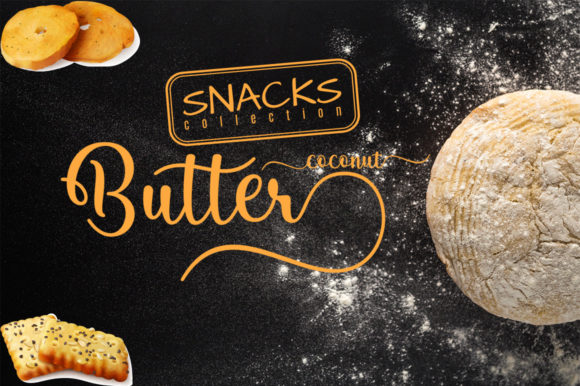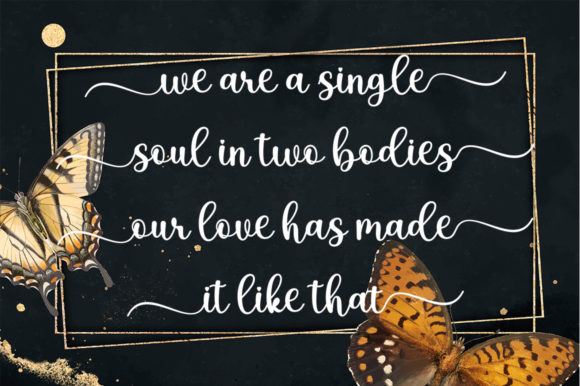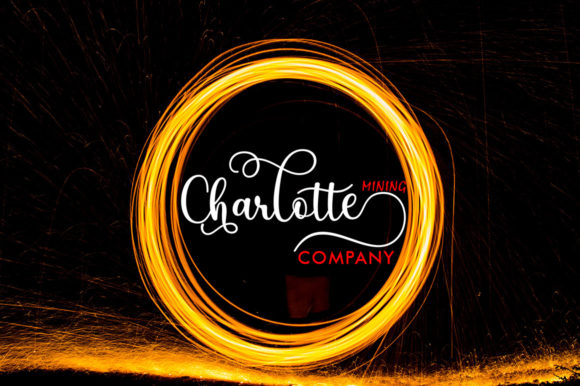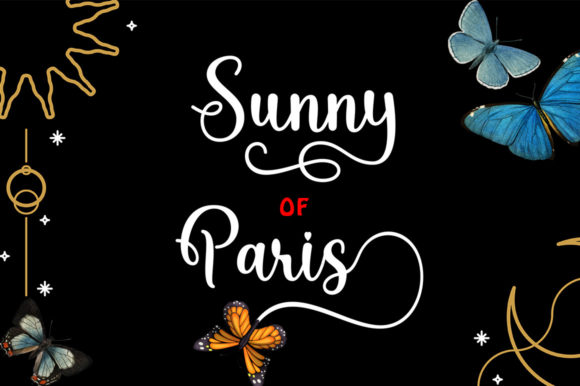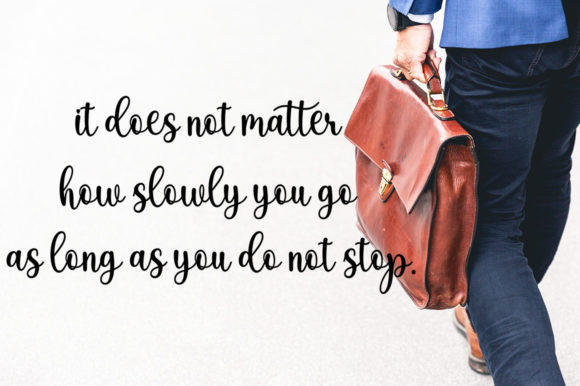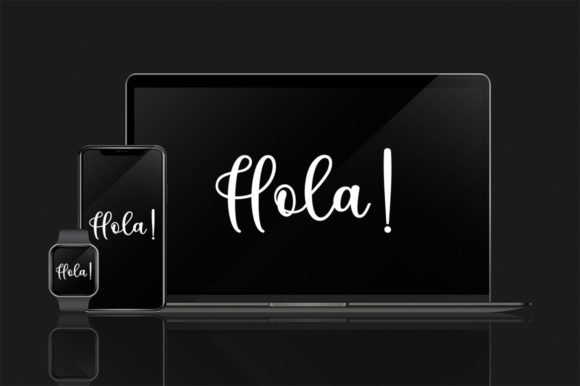
Berdinga Script Font: Elevate Your Designs with Elegance and Style
In the world of typography, a font can make or break a design. For designers and crafters seeking to add a touch of sophistication and elegance to their projects, the Berdinga Script Font is an exceptional choice. This beautifully crafted handwritten font is designed to become a true favorite among creative professionals, offering a wide range of applications and a user-friendly encoding system.
What is Berdinga Script Font?
Berdinga Script is an elegant and stylish handwritten font, carefully handcrafted to bring a touch of refinement to various design projects. Its flowing lines, beautiful swashes, and classic feel make it perfect for a multitude of purposes, including logos, wedding invitations, headings, t-shirts, letterhead, signage, labels, news, posters, badges, and more.
Key Features of Berdinga Script Font
- Elegant and Stylish Design: Berdinga Script boasts a sophisticated and stylish design, making it ideal for projects that require a touch of elegance.
- Handcrafted with Care: The font has been carefully handcrafted to ensure a high level of quality and attention to detail.
- PUA Encoded: Berdinga Script is PUA (Private Use Area) encoded, allowing easy access to all glyphs and swashes. This feature makes it simple to use and customize the font to suit your design needs.
- Versatile Applications: The font’s versatility makes it suitable for a wide range of projects, from logos and wedding invitations to signage and digital media.
Applications of Berdinga Script Font
The Berdinga Script Font is perfect for various design projects, including:
- Logos: Create a lasting impression with a custom logo designed using Berdinga Script.
- Wedding Invitations: Add a touch of romance and sophistication to your wedding invitations with this beautiful font.
- Headings and Titles: Use Berdinga Script to create eye-catching headings and titles for your blog posts, articles, or social media content.
- T-Shirts and Merchandise: Design stylish and unique t-shirts, hoodies, and other merchandise using Berdinga Script.
- Signage and Labels: Create visually appealing signage and labels for your business or event.
- Posters and Flyers: Use Berdinga Script to design stunning posters and flyers that grab attention.
Why Choose Berdinga Script Font?
With so many fonts available, why choose Berdinga Script? Here are a few compelling reasons:
- Unique and Elegant Design: Berdinga Script offers a distinctive and stylish design that sets it apart from other fonts.
- High-Quality and Attention to Detail: The font has been carefully crafted to ensure a high level of quality and attention to detail.
- Easy to Use and Customize: The PUA encoding system makes it simple to access and customize the font to suit your design needs.
- Versatile and Compatible: Berdinga Script is compatible with various design software and can be used for a wide range of projects.
In conclusion, the Berdinga Script Font is an exceptional choice for designers and crafters seeking to add a touch of elegance and sophistication to their projects. With its beautiful design, versatile applications, and user-friendly encoding system, Berdinga Script is sure to become a favorite among creative professionals. Whether you’re designing logos, wedding invitations, or signage, this font is sure to elevate your designs and leave a lasting impression.